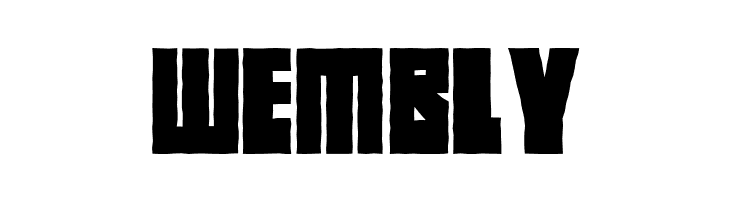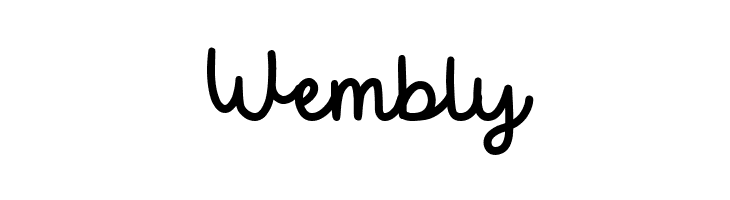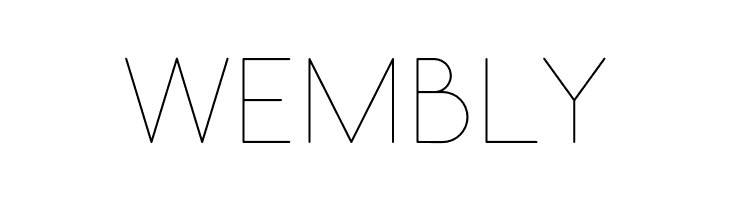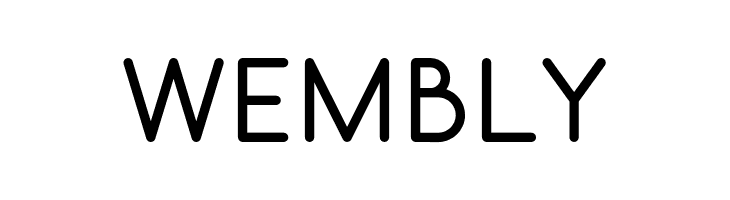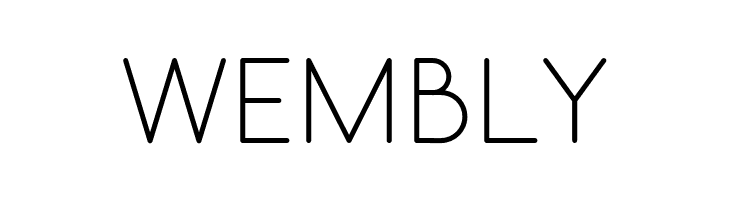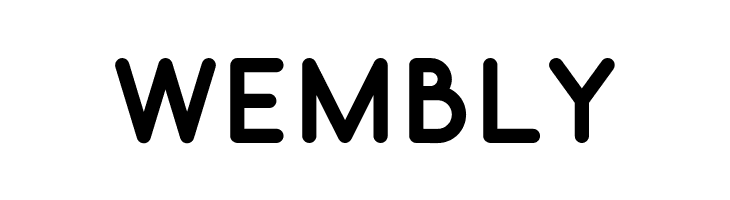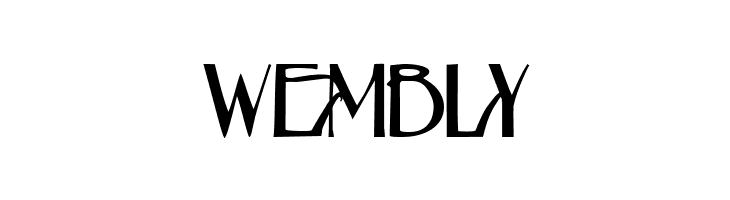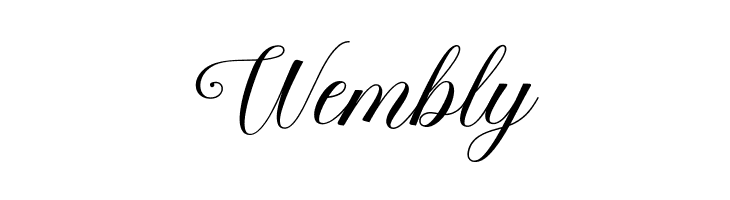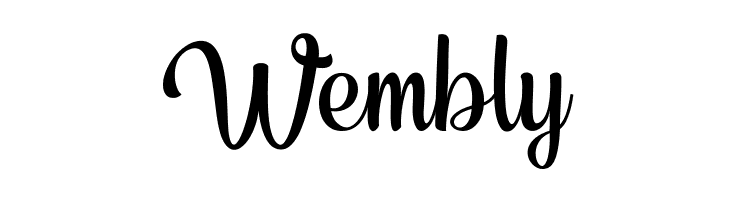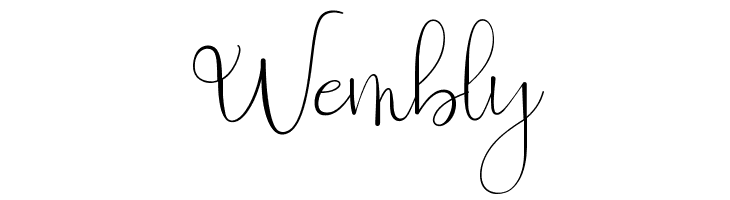
• Beautiful Ink
• Beautiful Roses Script
An elegant script font with flowing, interconnected letters and ornate flourishes.
• Beautiful Vampires
A bold, jagged font with an edgy, brush-like appearance.
• BeautifulScript-script
A fluid, elegant script font with a graceful, handwritten style.
• BeautifulScript-script
A sophisticated script font with flowing, interconnected characters and high contrast strokes.
• Beauty And Love ScriptFree
A graceful script font with elegant loops and swirls, perfect for romantic designs.
• BeautyQueenScript
An elegant and sophisticated script font with flowing, interconnected letters.
• Beauvoir Demo
• Becca & Perry script
A playful, handwritten script font with smooth, connected characters.
• BeckyScript
• BedforeScript
A playful and elegant script font with flowing, interconnected letters.
• Bedini Italic
• Bee Marker Ink
A playful, handwritten-style font with bold, rounded characters.
• BeeQueen Script Clean
A flowing, elegant script font with ornate uppercase and smooth lowercase letters.
• BeethovenRough
• BeethovenRougher
• Befitting Demo
A dynamic and expressive script font with a fluid, handwritten style.
• Before I Fall Demo
A hand-drawn, expressive font with a sketch-like, graffiti-inspired style.
• before sunday